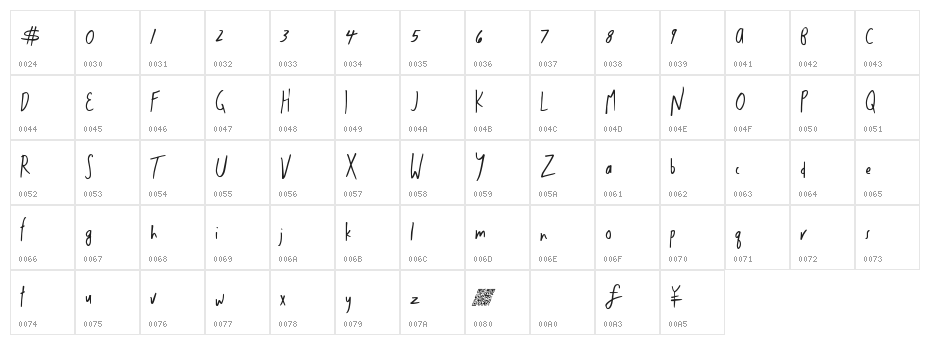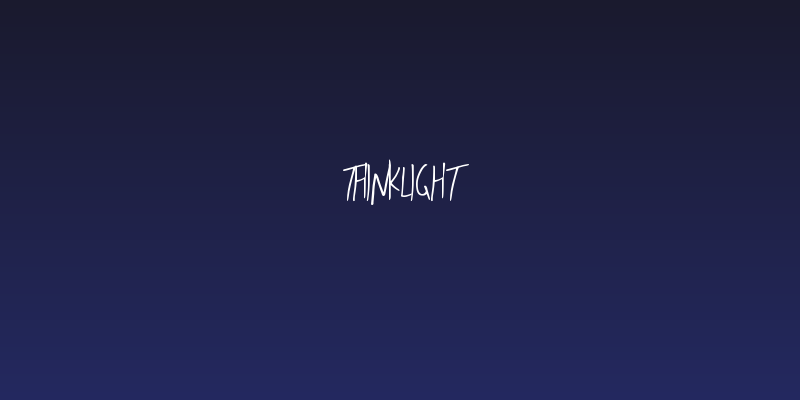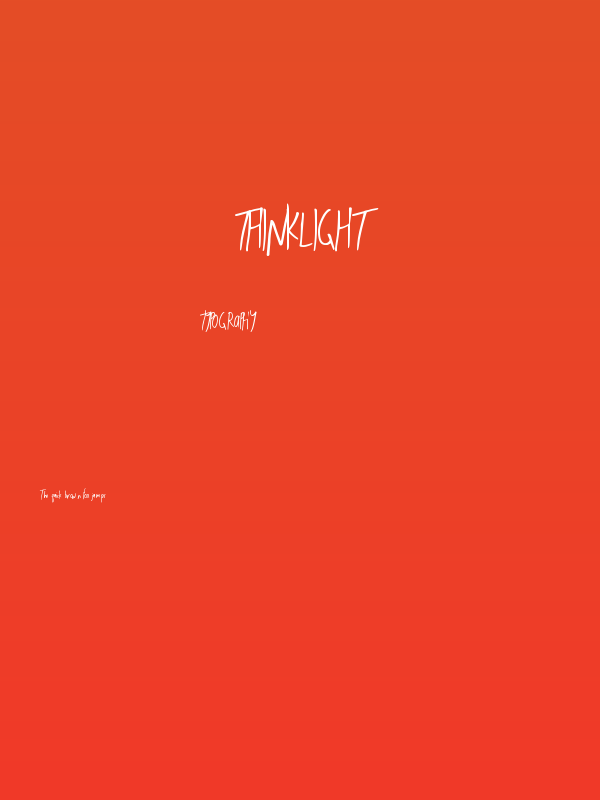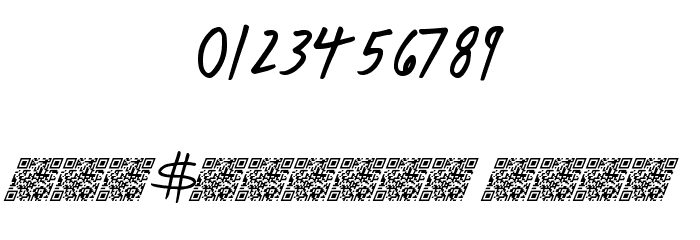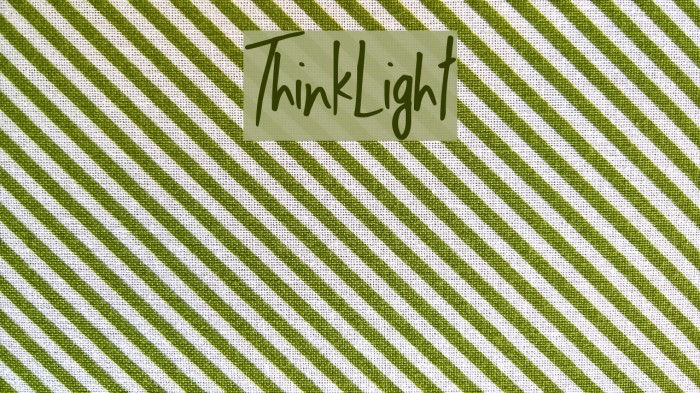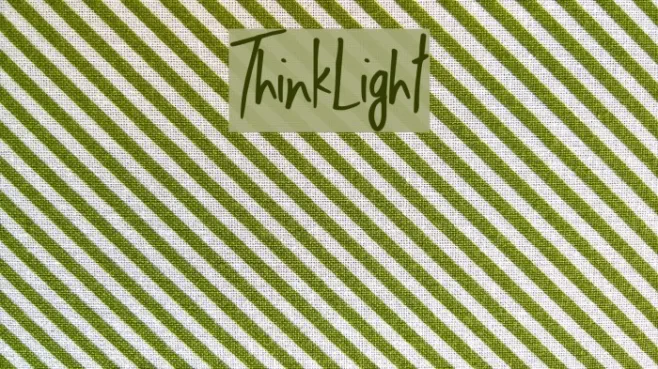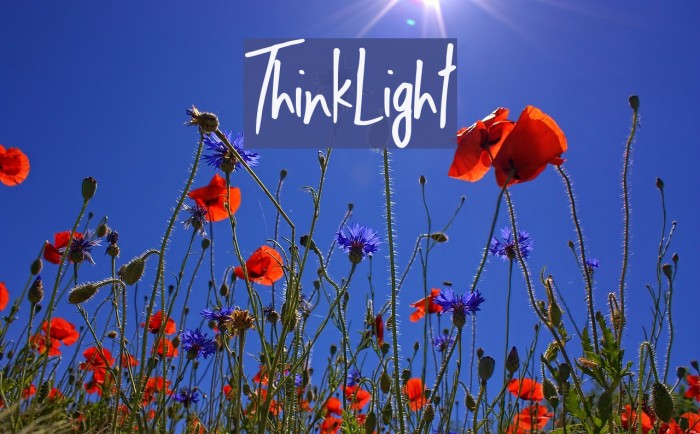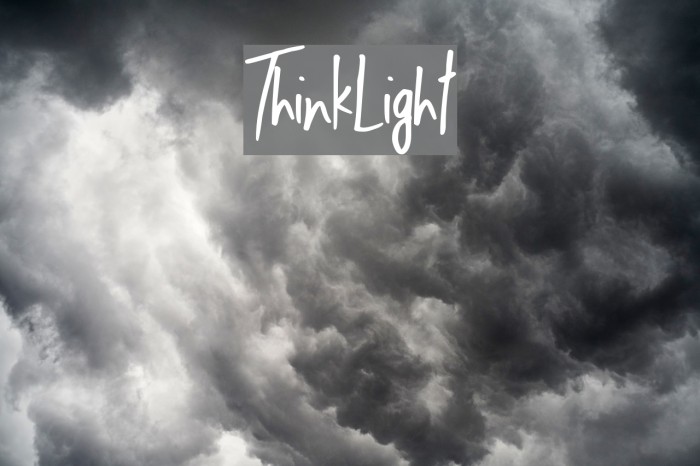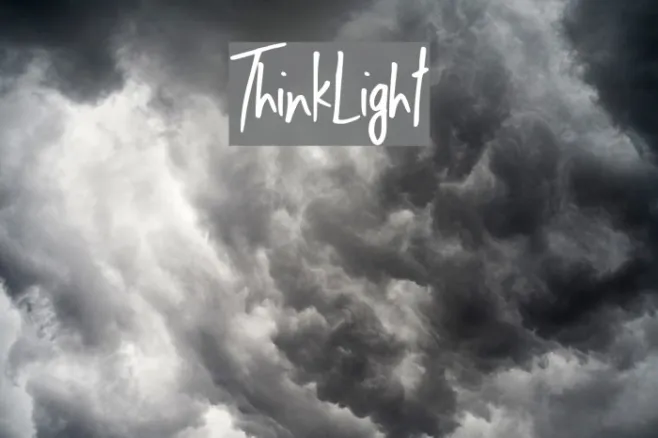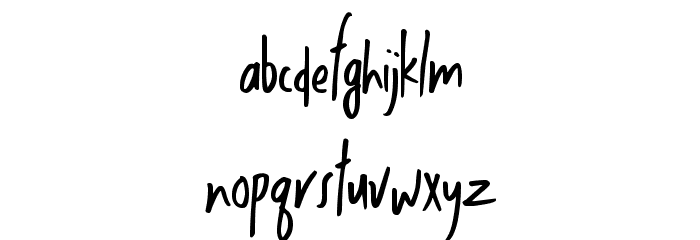
ThinkLight Font
ThinkLight Description
This font features a playful and dynamic handwritten style, characterized by its irregular and slightly slanted letterforms. The strokes are uneven, giving it a casual and informal appearance. The uppercase letters are tall and narrow, while the lowercase letters maintain a consistent flow with a slight bounce, adding to the font's whimsical charm. The numerals are distinct and maintain the same playful aesthetic, ensuring readability. Special characters are integrated seamlessly, maintaining the overall style. This font is perfect for projects that require a personal touch or a creative flair.